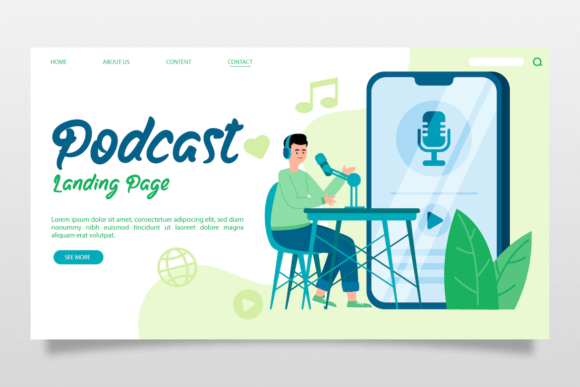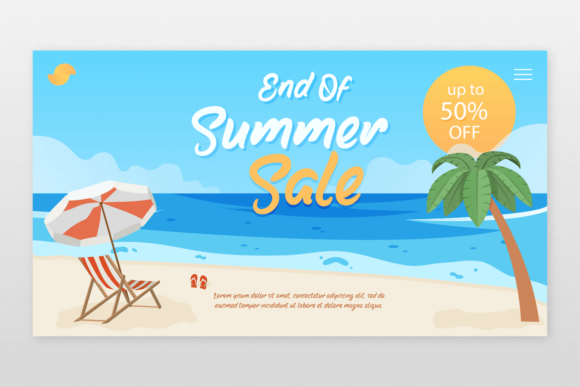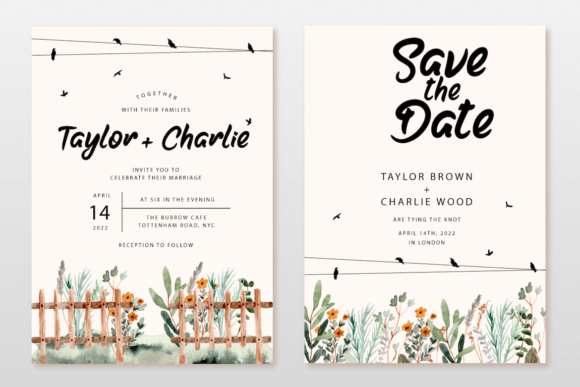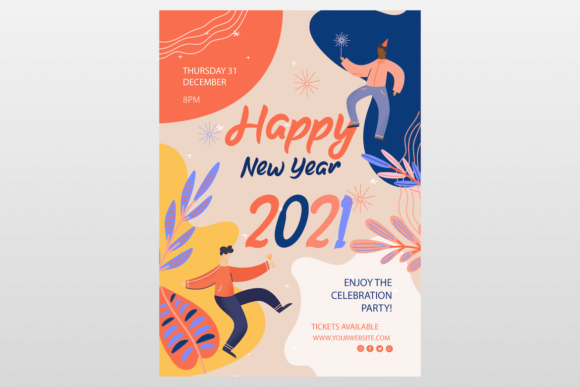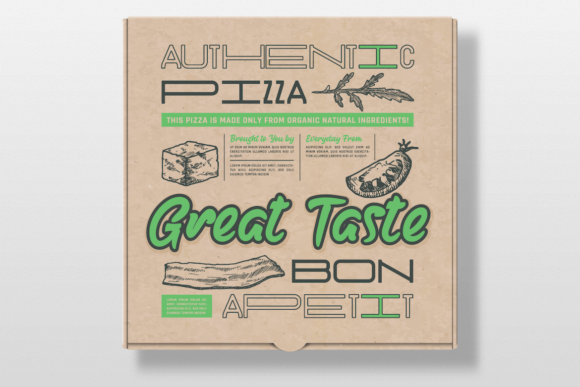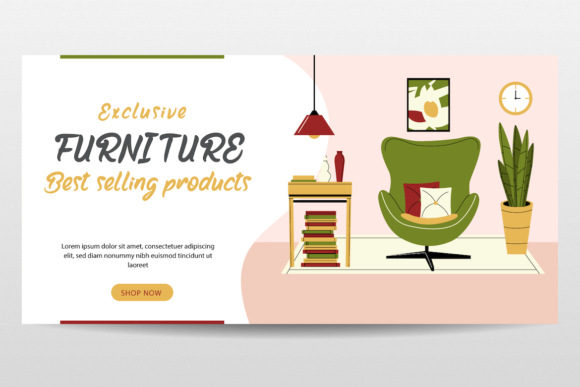
Have you ever found yourself scribbling down a romantic message for your loved one, only to realize that the handwriting just wasn’t as swoon-worthy as you’d hoped? We’ve all been there – the search for the perfect font to convey our emotions can be a daunting task. That’s where the charming Dating Font comes in, a cursive and stylish paint-brushed handwritten font that’s sure to capture the essence of your feelings.
Whether you’re a designer, crafter, or simply a hopeless romantic, Dating Font is the perfect addition to your toolkit. Its versatility makes it ideal for everything from digital designing and presentations to crafting and making greeting cards. And for designers, this font is a valuable asset – its unique blend of elegance and whimsy adds a touch of personality to any project.
Dating Font Key Features
- Unique Characteristics: The font features a modern, elegant design with a unique blend of cursive and sans-serif elements, making it perfect for creating eye-catching and romantic designs.
Dating Font Review
Overall, I was quite excited to dive into the Dating Font, a new font designed specifically for the dating world. Here’s what I thought:
- The font’s cursive script style is perfect for creating a romantic and playful vibe.
- The set includes a range of swashes and flourishes that add a touch of whimsy to any text.
- The font’s large x-height makes it easy to read, even at small sizes.
- The font’s limited character set means it may not be suitable for longer texts or professional use.
- The swashes and flourishes can sometimes feel overused or distracting.
- The font’s design may not be to everyone’s taste, particularly those who prefer more modern or minimalist styles.
Overall, I think the Dating Font is a great choice for designers who want to add a touch of romance and whimsy to their projects. While it may not be perfect, its unique style and playful feel make it a great addition to any designer’s toolkit.
Dating Font Practical Application Guide
Dating Font is commonly used in the following scenarios:
– Creating romantic invitations and cards
– Designing dating website and app interfaces
– Crafting love letters and poems
– Creating social media posts and ads related to dating and relationships
Tips for Getting the Most Out of Dating Font
To get the most out of Dating Font, consider the following tips:
– Use it in conjunction with other romantic and elegant fonts for a cohesive look.
– Experiment with different font sizes and styles to create visual
Alternatives to Dating Font for Designers
Great Vibes is a modern script font that is perfect for adding a touch of elegance and sophistication to your designs. It is ideal for use in wedding invitations, quotes, and other romantic-themed designs. Compared to Dating Font, Great Vibes has a more refined and polished look, making it a great choice for designers who want to create a high-end feel.